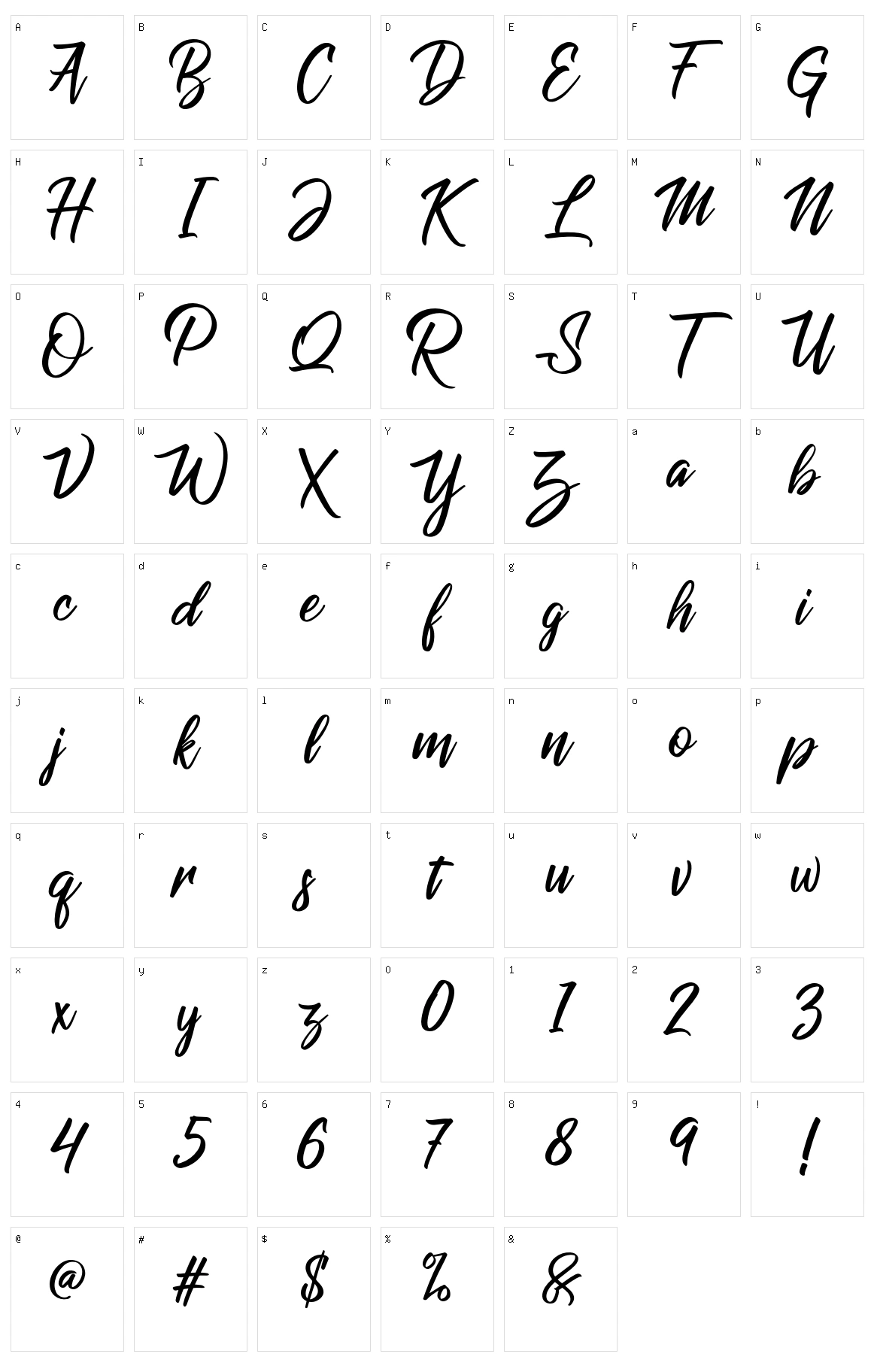
Introducing Raph Lanok Typeface which has a elegant hand lettering brush style. So it looks natural like a handmade, because Raph Lanok family have a more choice characters. This font is best used for your design project that has the concept of fun, brave and sporty. Can also be applied to the design of a logotype, header website, make some lettering a quote, t-shirt design etc.
Raph Lanok has three font styles are similar but a different character, namely is Raph Lanok Future and Raph Lanok Rusty but that you also get a Raph Lanok Swash of line fast brushed like a using font.
Raph Lanok Typeface deserve to be one of your fonts collections, because it is unique and has many options of alternative glyphs.
Features :
Character Set A-Z
Numerals & Punctuations (OpenType Standard)
Accents (Multilingual characters)
Standart Ligature
Stylistic Alternates
Apercase Alternates
SS01
SS02
SS03